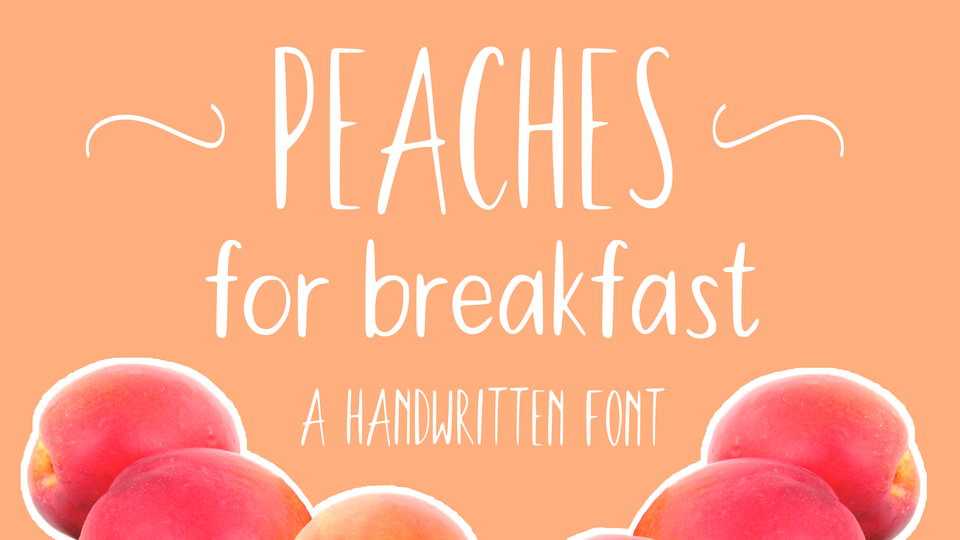
Download Peaches for Breakfast font- a lovely and cute handwritten sans. It is suitable for craft design, social media, blogs, cards, letters and other artworks.
Designer: Merrijart